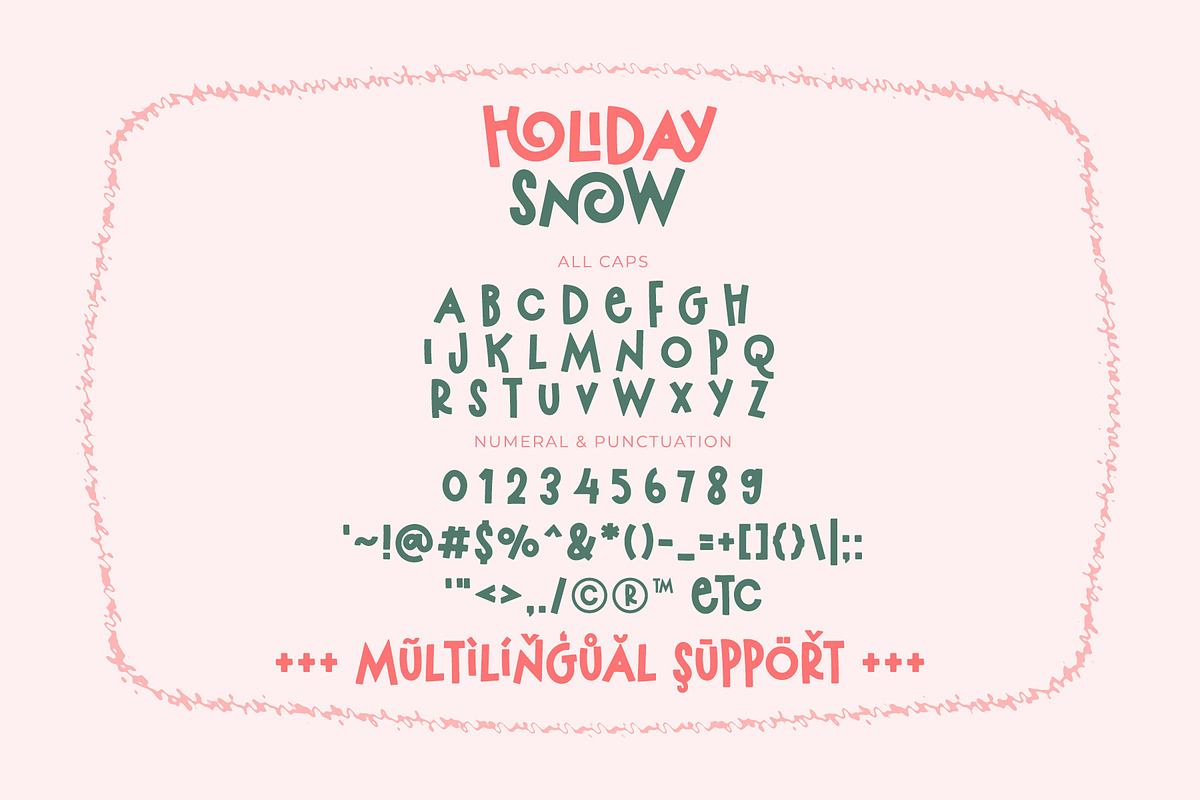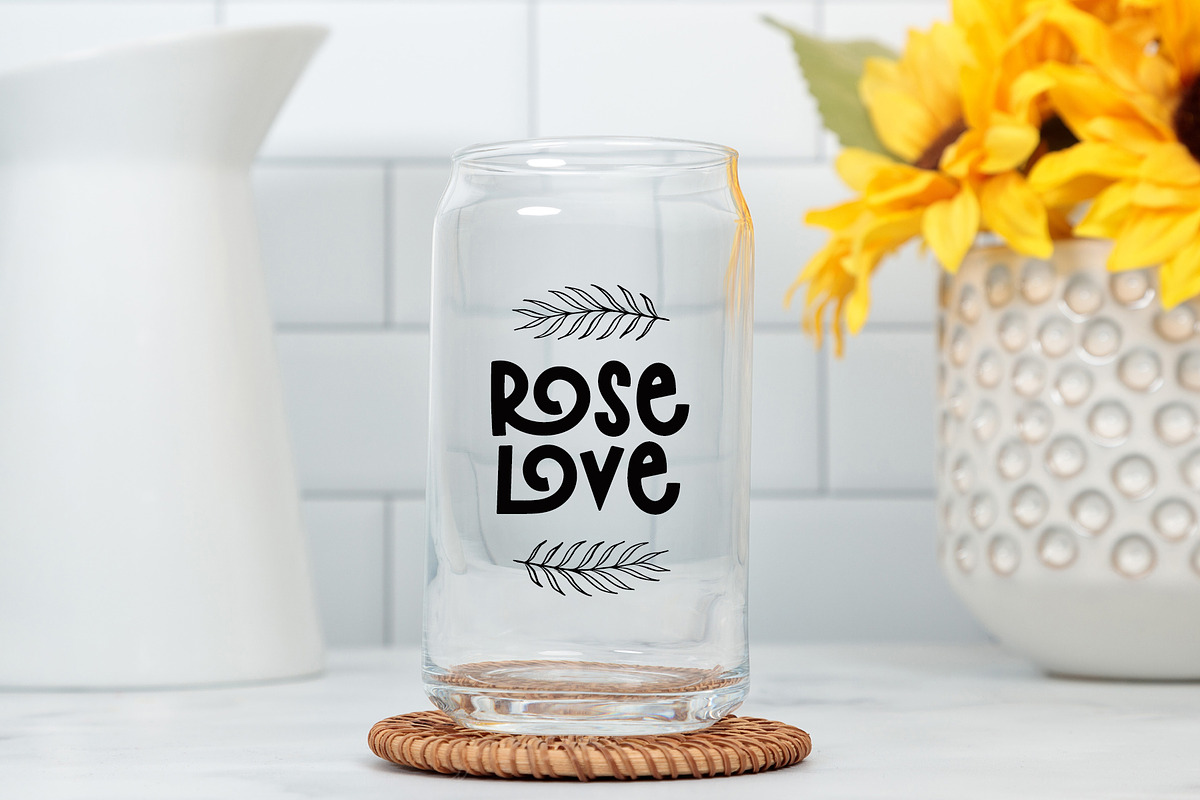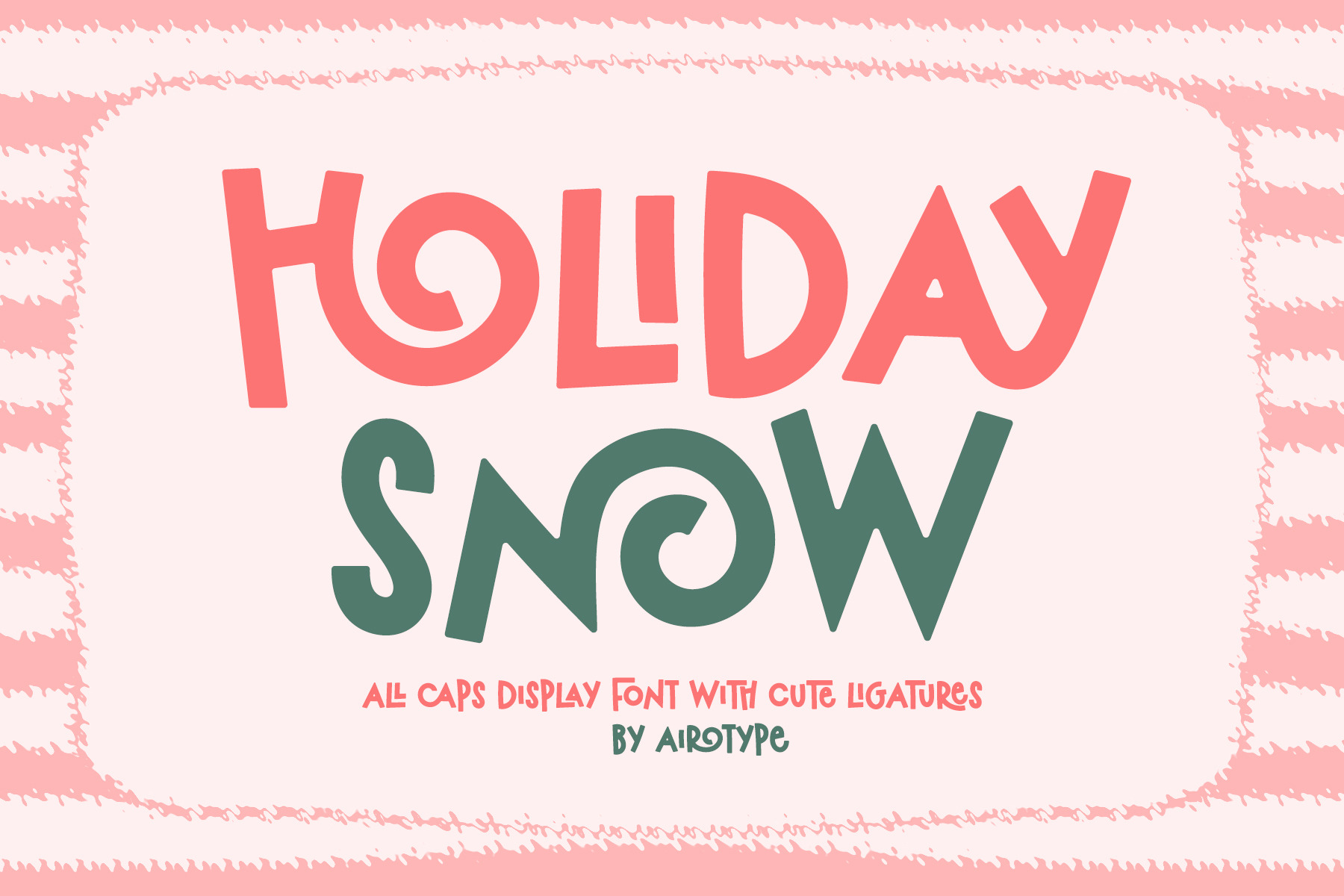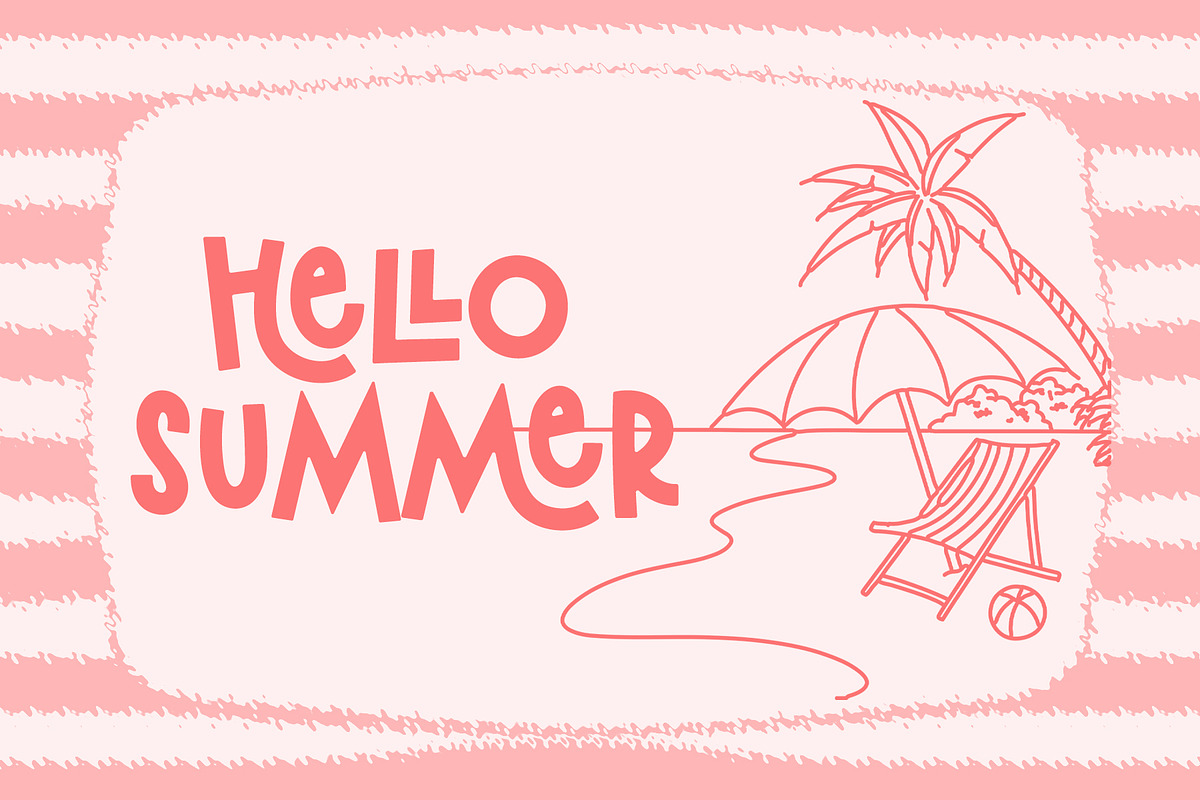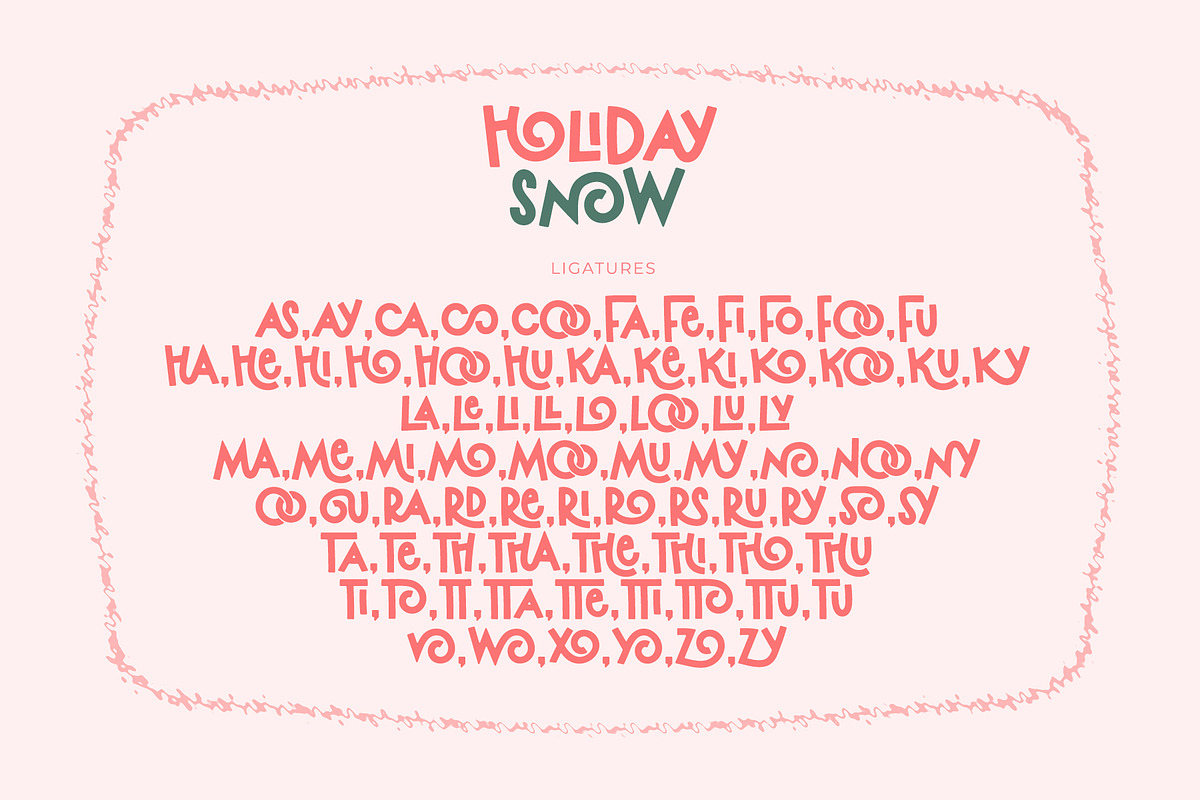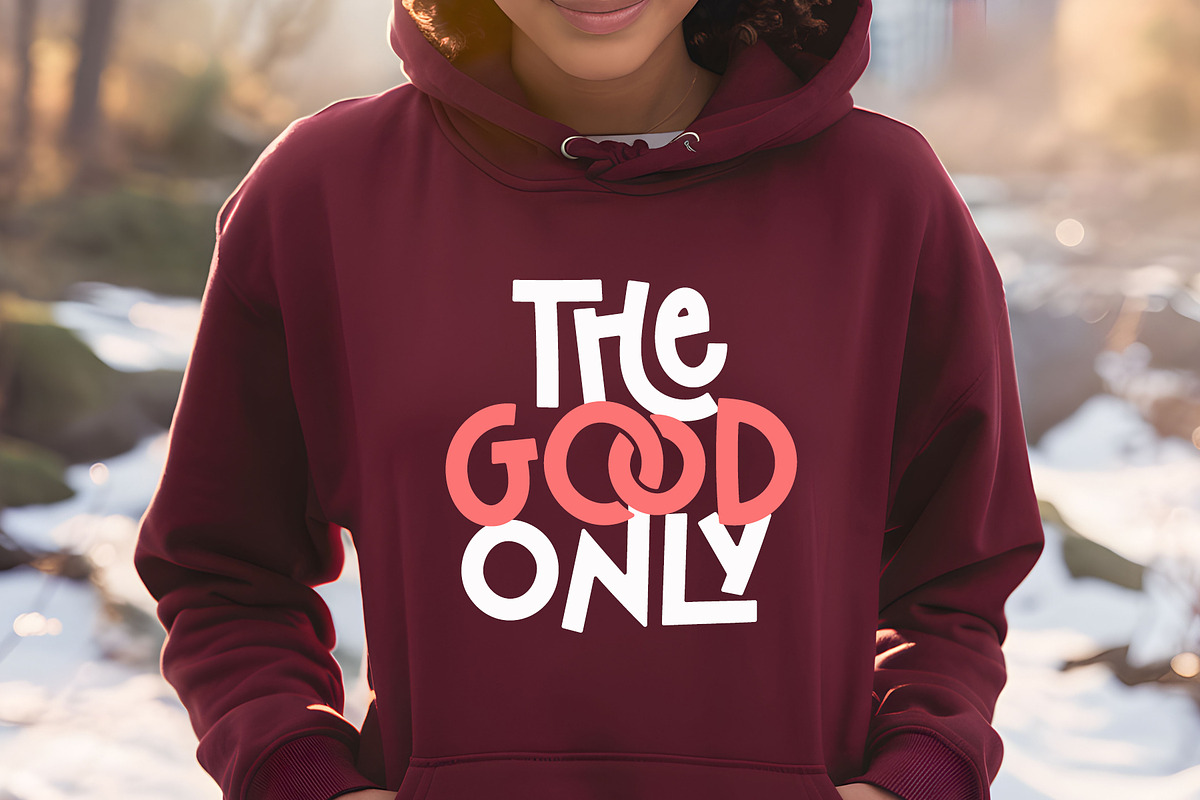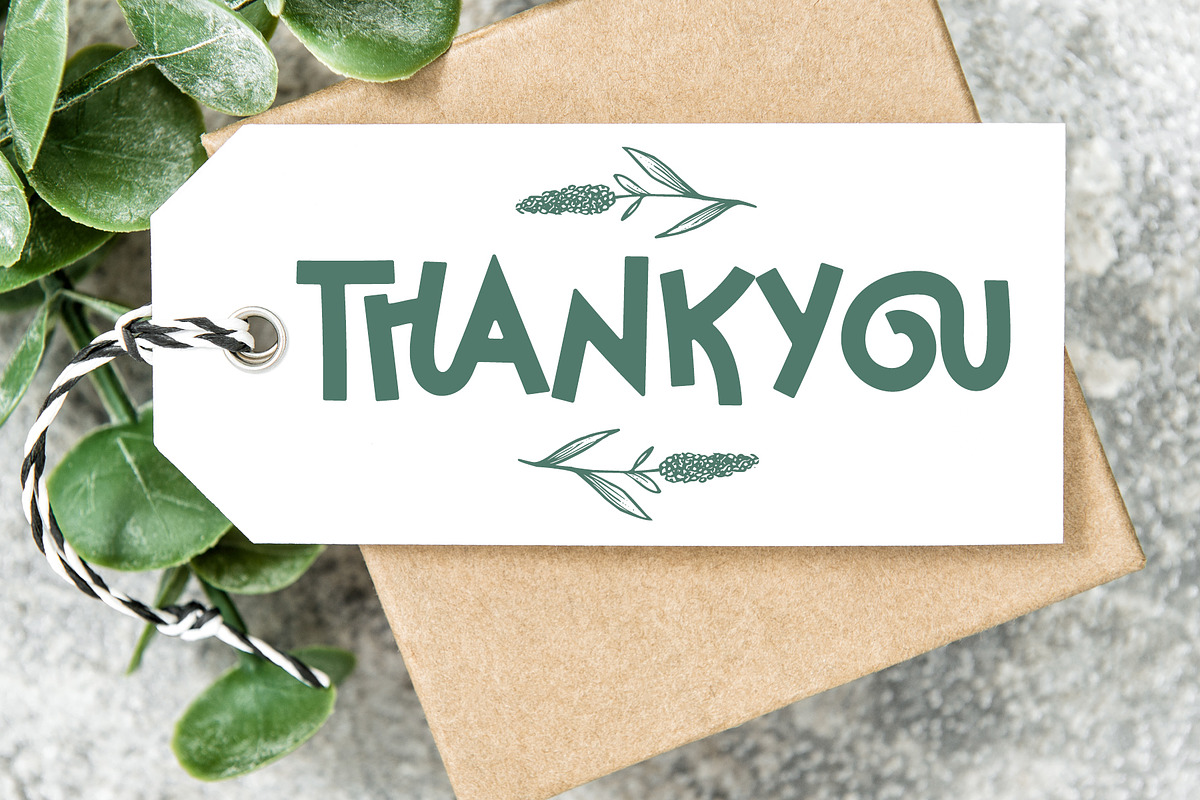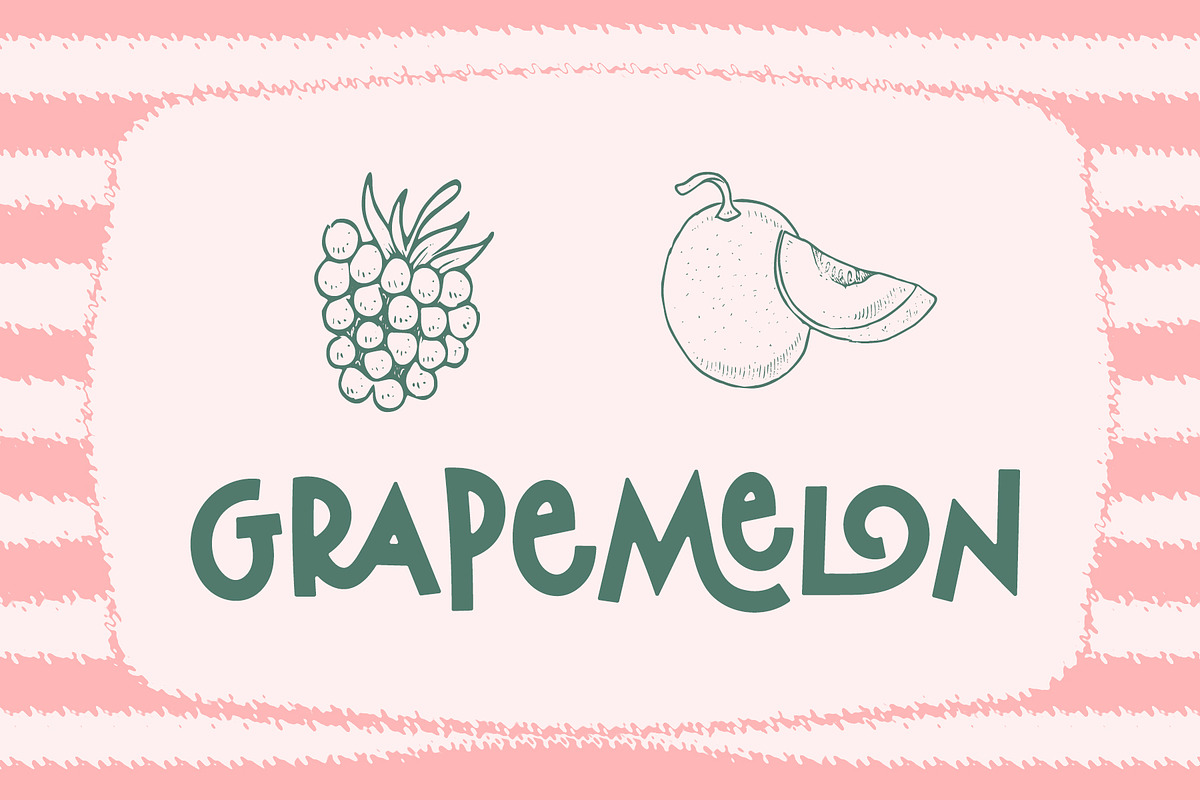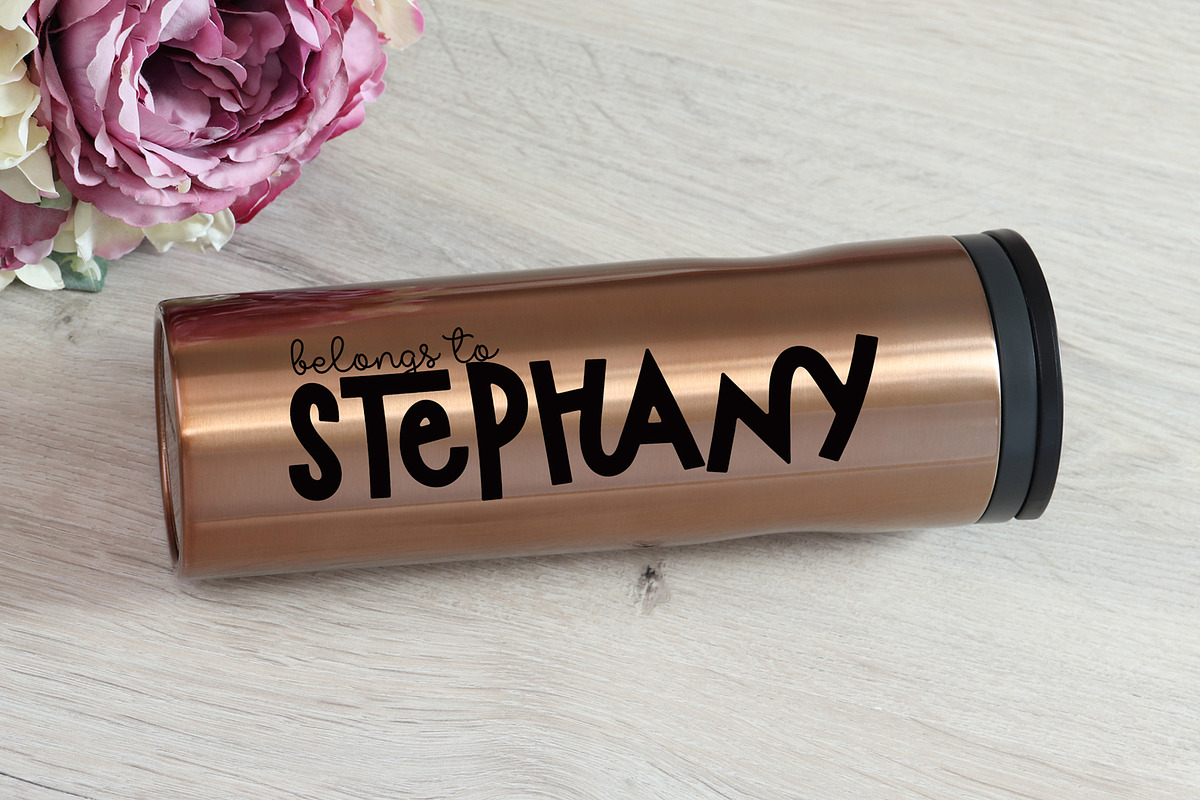
Holiday Snow - Cute Display Font
Holiday Snow is all caps font with cute and festive vibes. This font is bold, bouncy, and having bright vibes.
This font has lots of ligatures to give more options in designing. Make sure your design software has ligature features.
This font is perfect font for any projects, especially with cute and playful style, such as logo, t-shirt, crafting, poster, branding, sticker, sublimation, quotes, and many more.
- All Caps with ligatures
- Most Multilingual Accent